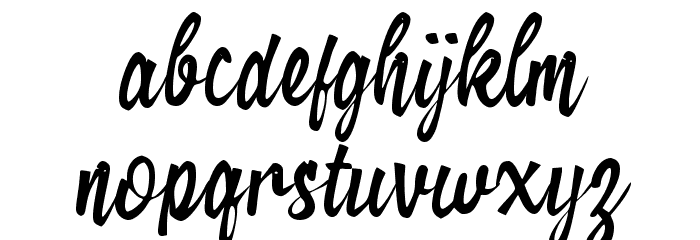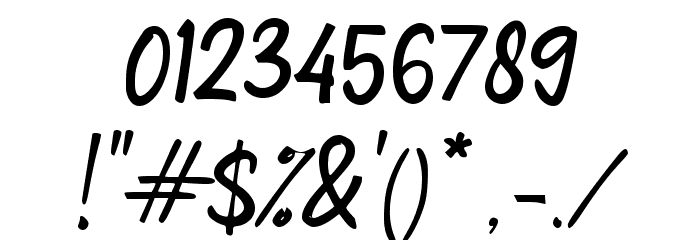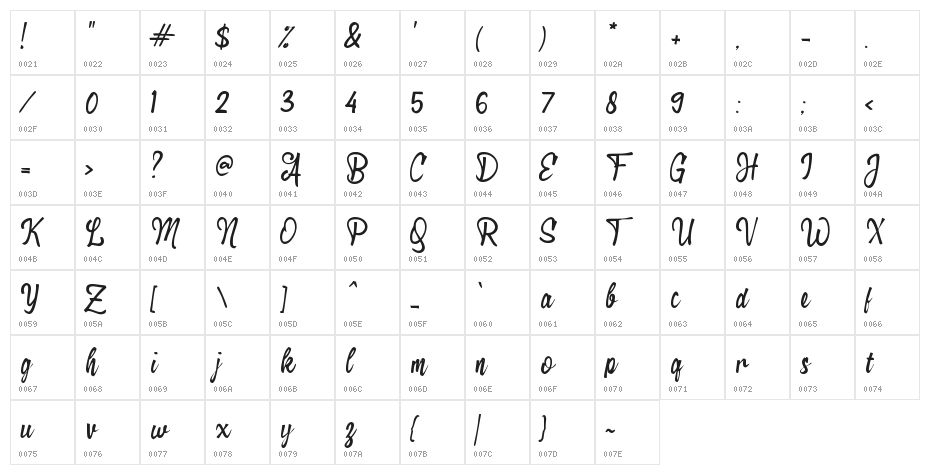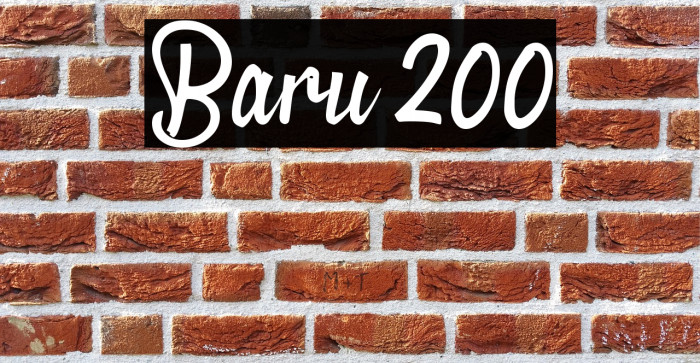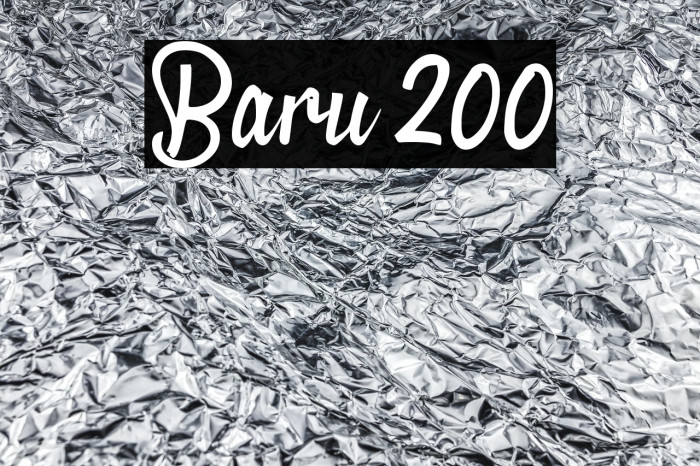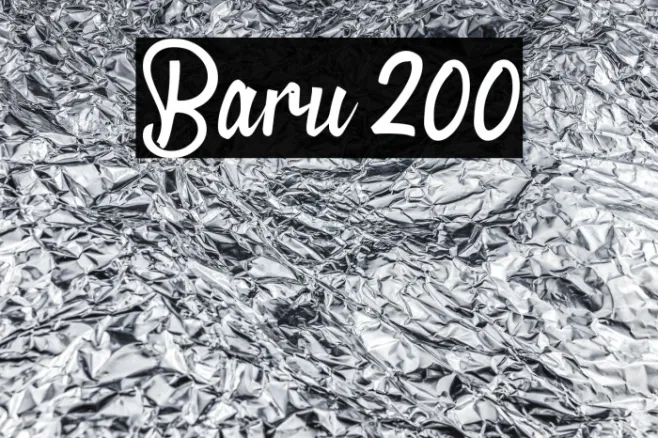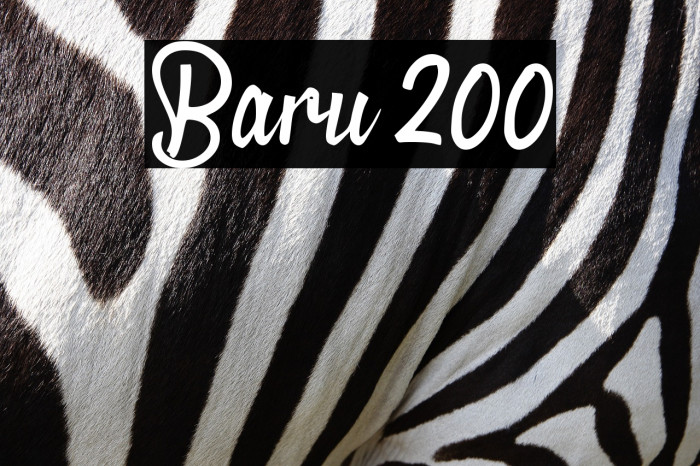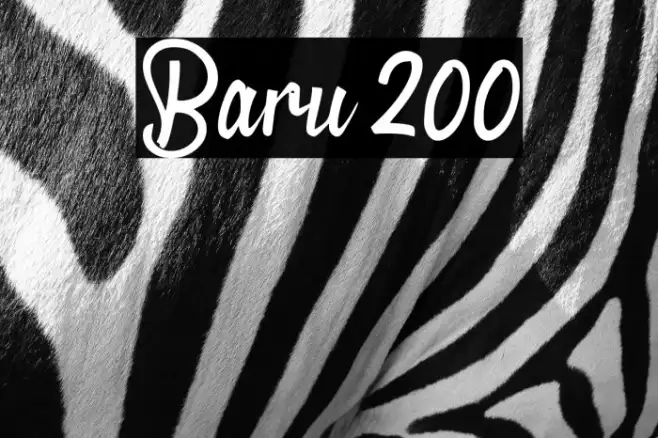
Baru 200 Font
This font exhibits a lively and dynamic script style, characterized by its flowing and connected letterforms. The uppercase letters are bold and expressive, with a slight slant that adds to the overall fluidity. The lowercase letters maintain a consistent rhythm, enhancing readability while retaining a handwritten charm. The numerals are clear and distinct, complementing the alphabet with their rounded and slightly italicized appearance. Special characters are elegantly integrated, maintaining the cohesive aesthetic of the font. The overall design is both playful and sophisticated, making it suitable for a variety of creative applications.
A lively and dynamic script font with flowing, connected letterforms.